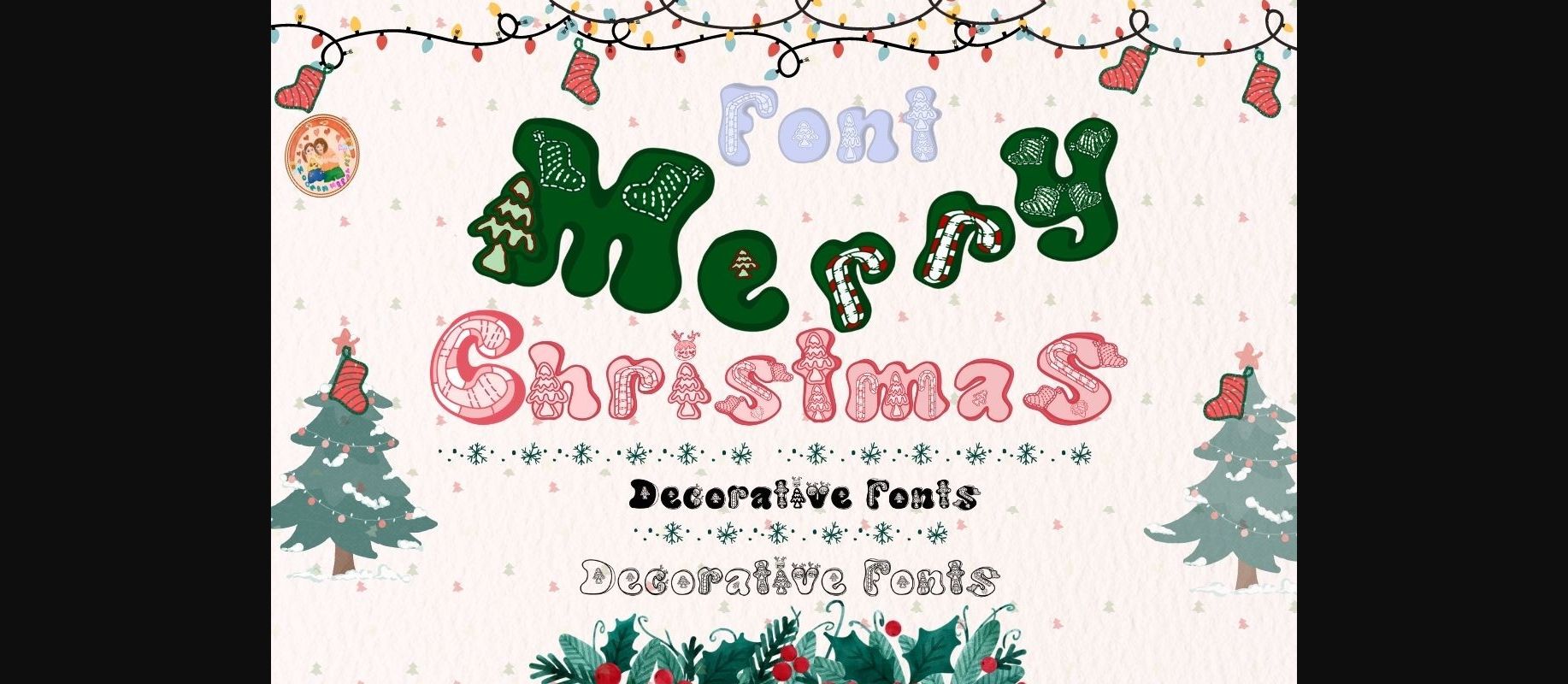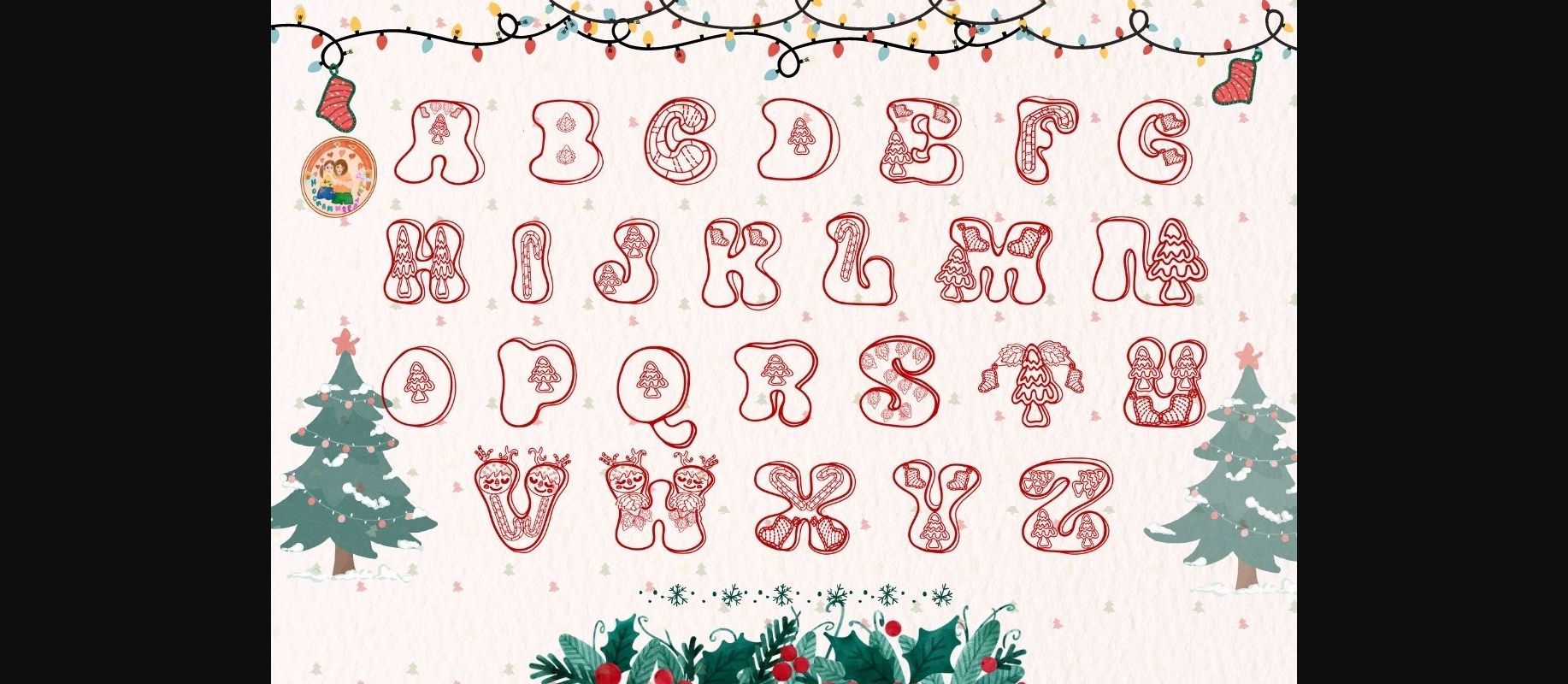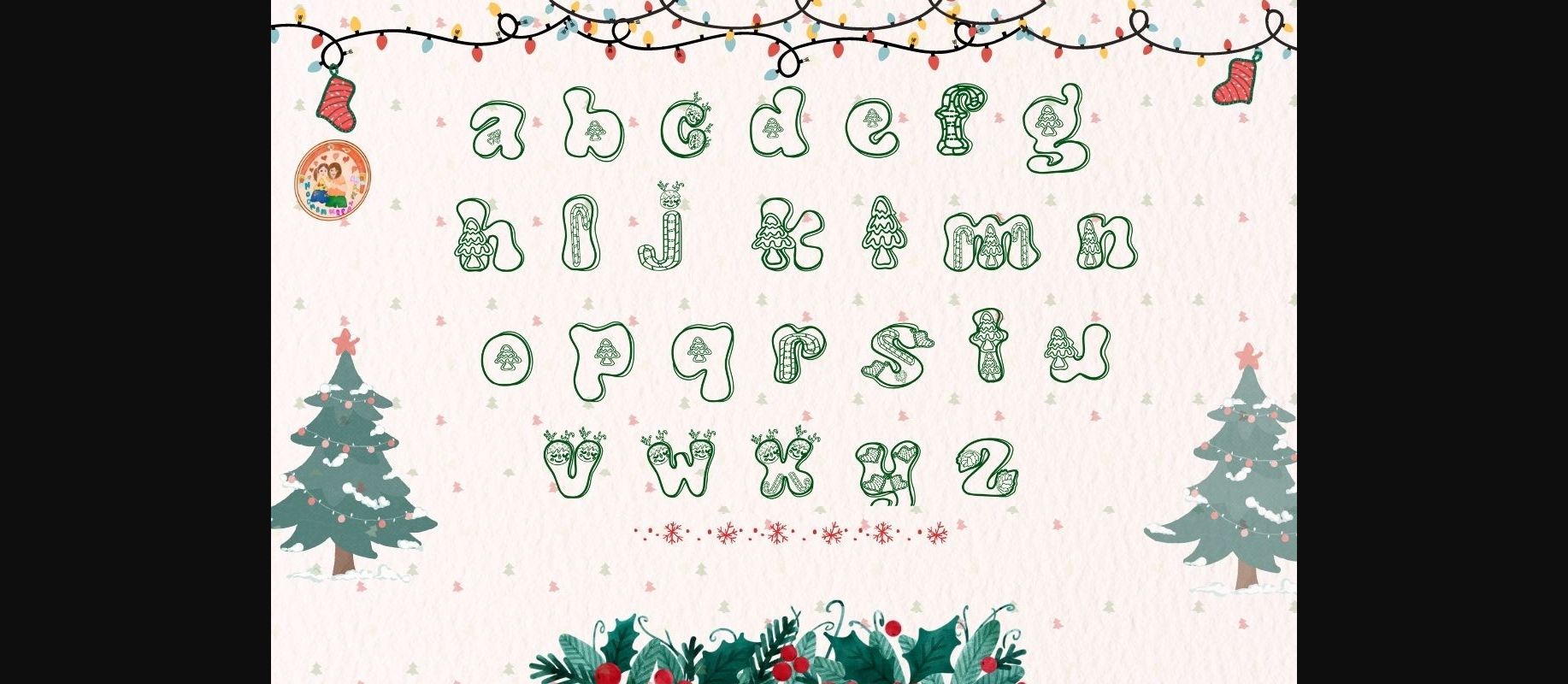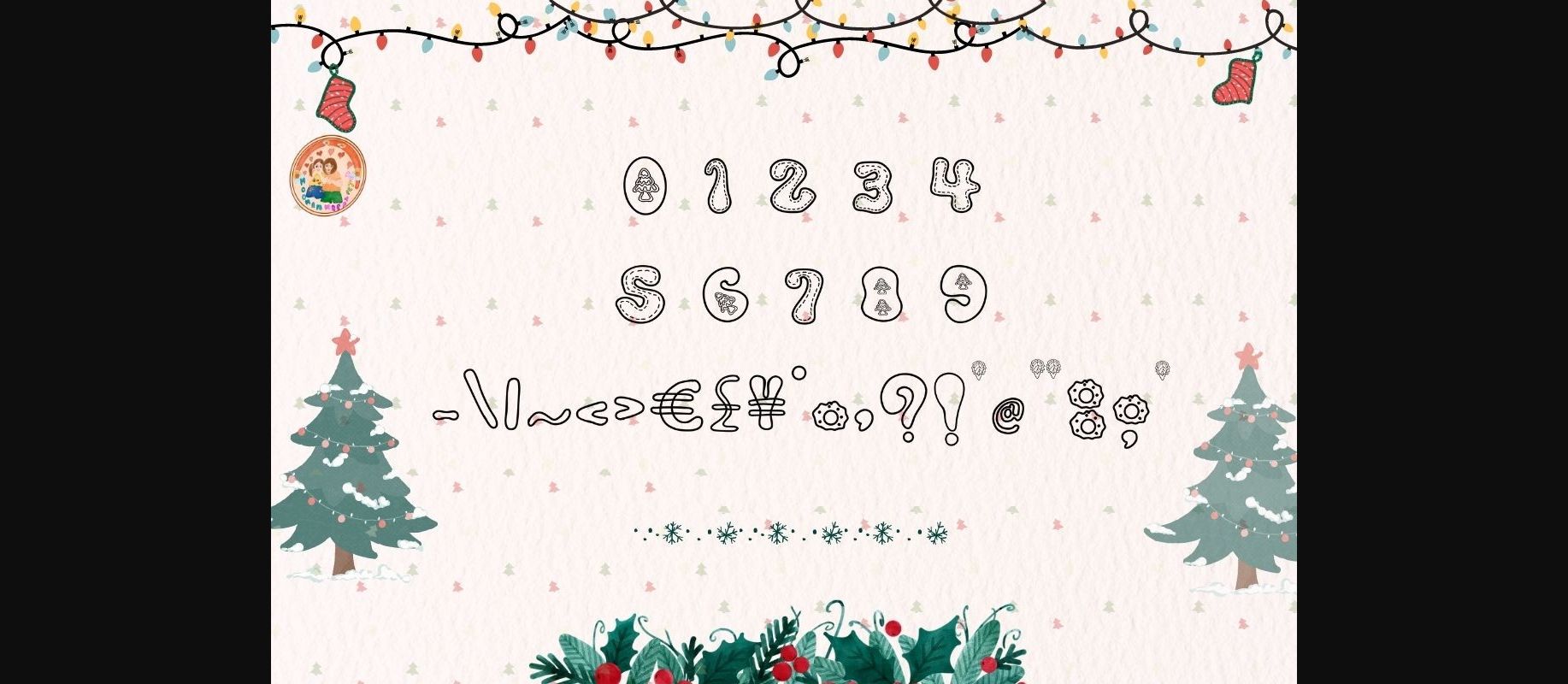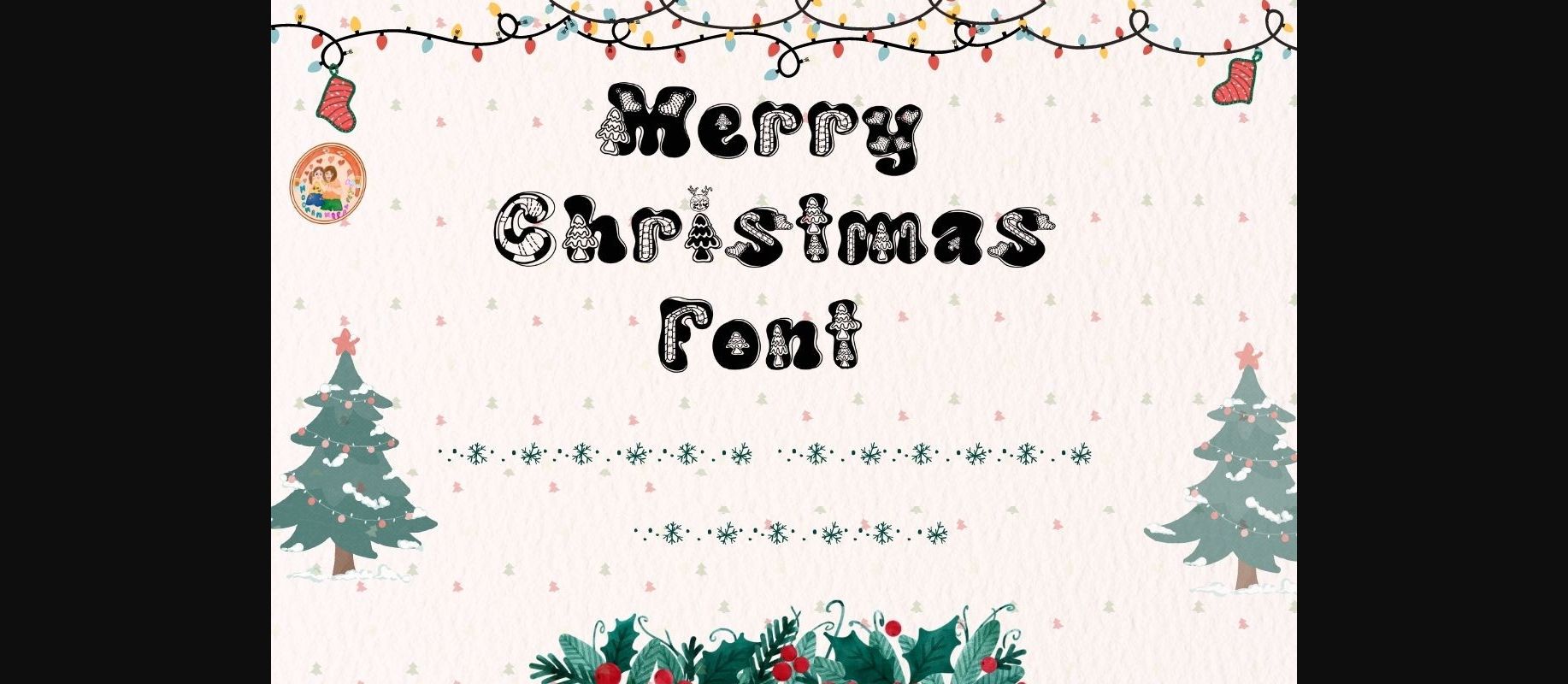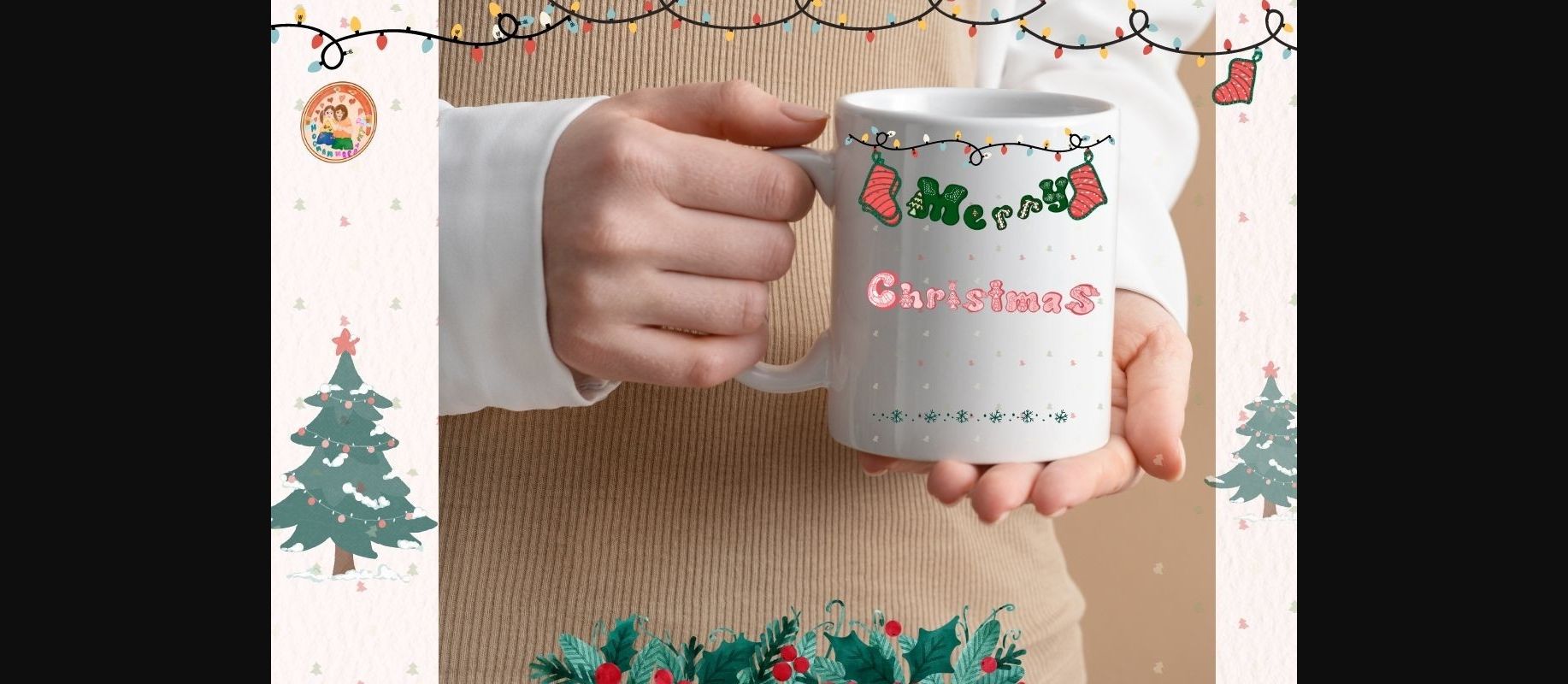
Merry Christmas Font
About Merry Christmas Font
Merry Christmas is an enchanting and magical decorative font. Fall in love with it and use it to create gorgeous invitations, beautiful stationary art, eye-catching social media posts, and cute greeting cards. Add this beautiful font to each of your creative ideas, and notice how it makes them stand out.